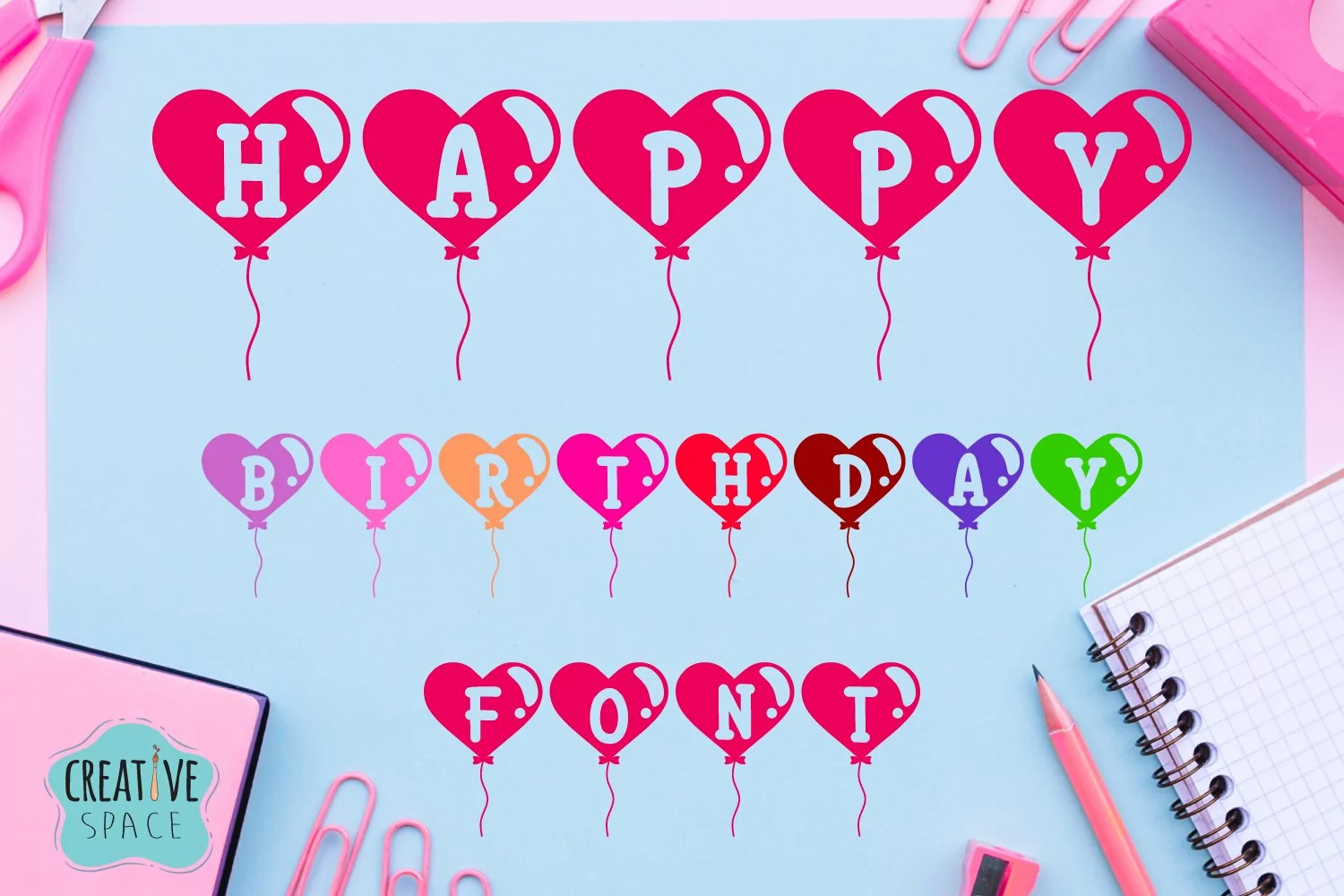
Happy Birthday Font is a fun option for all celebration designs and projects. With heart shaped balloons and an easy to read font style, Happy Birthday Font is perfect for all your project that required a touch of fun and whimsy. All letters are the same for both uppercase and lowercase, and all numerals are included from 0-9.